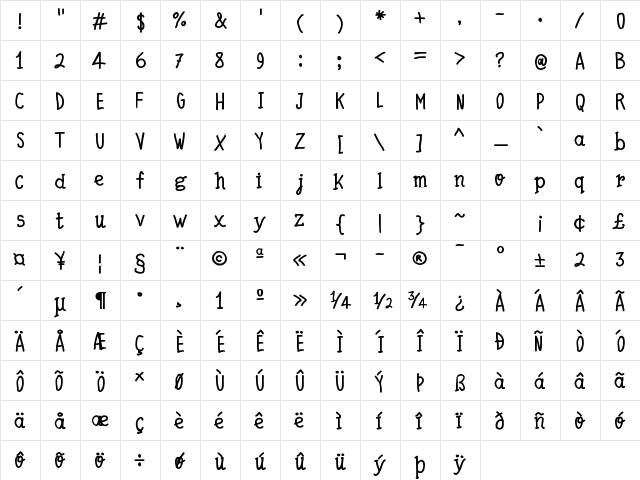
Quick Writing Bold
Design Context for Quick Writing Typeface
Quick Writing is a composed and adaptable typeface that performs quietly and consistently across a wide range of design contexts. The heavy weight commands attention and anchors typographic hierarchies.